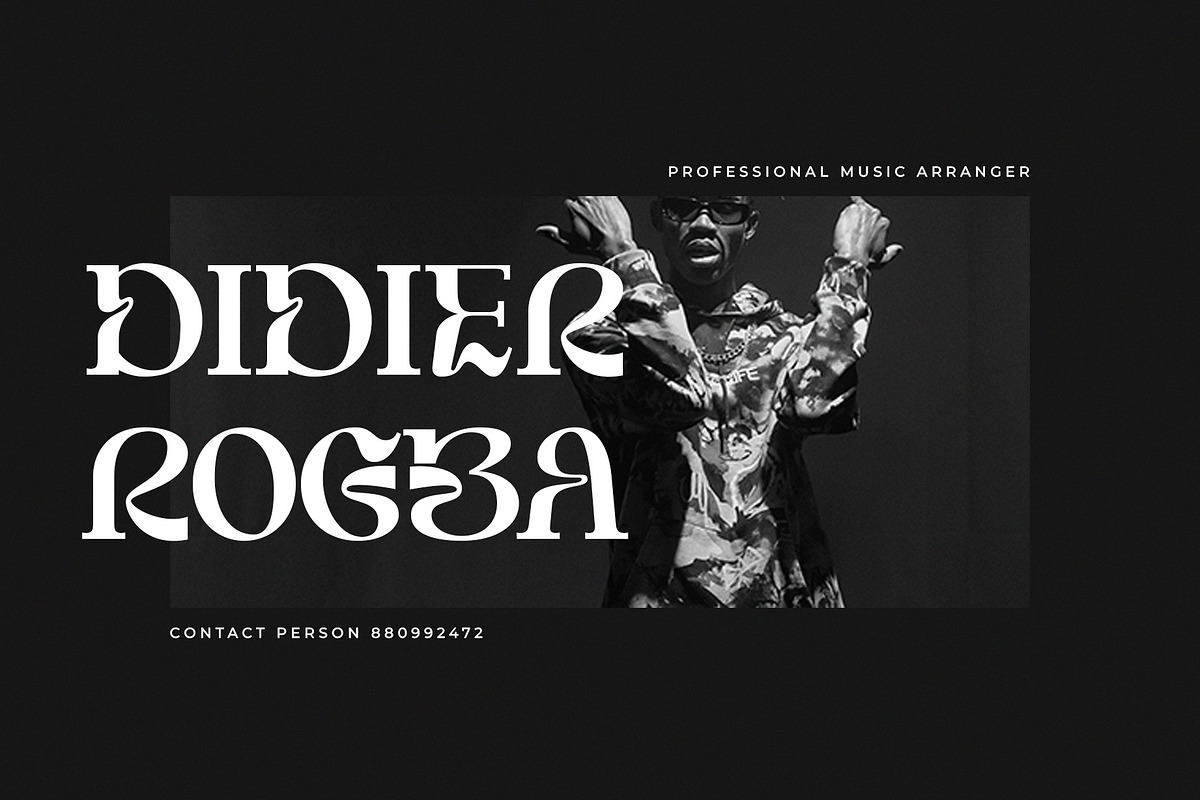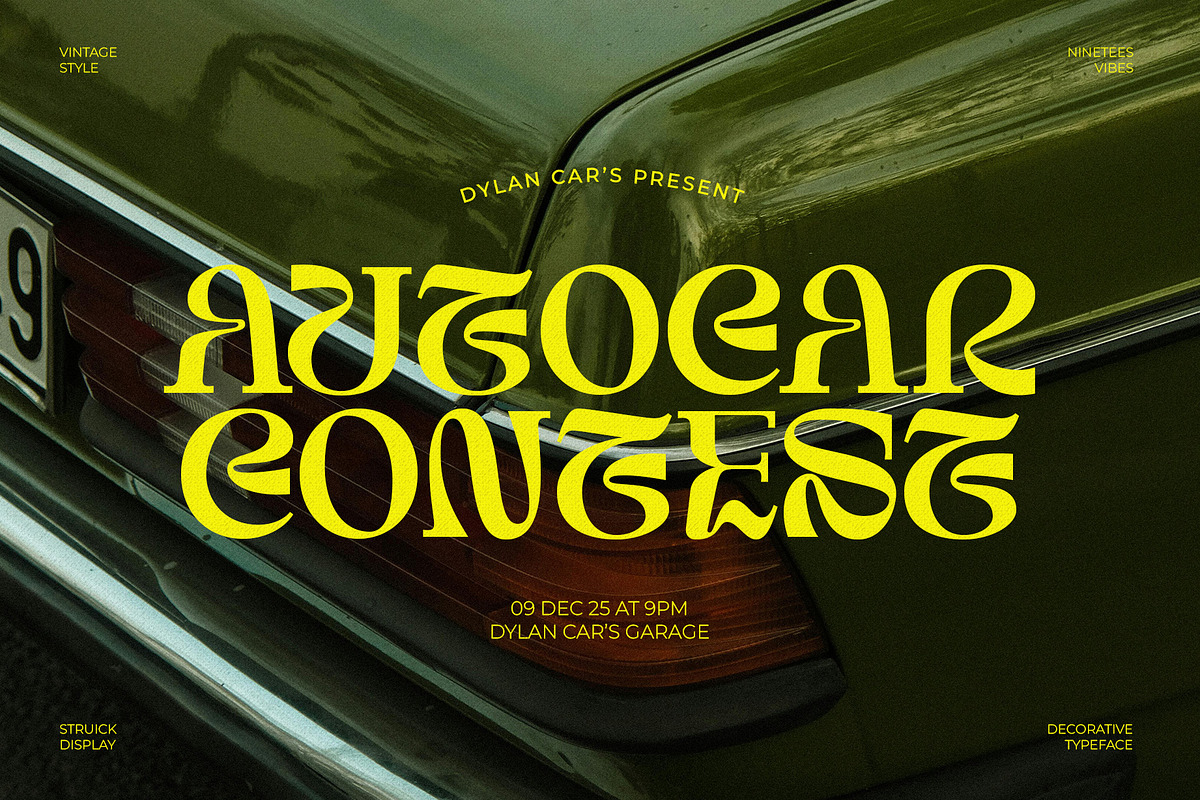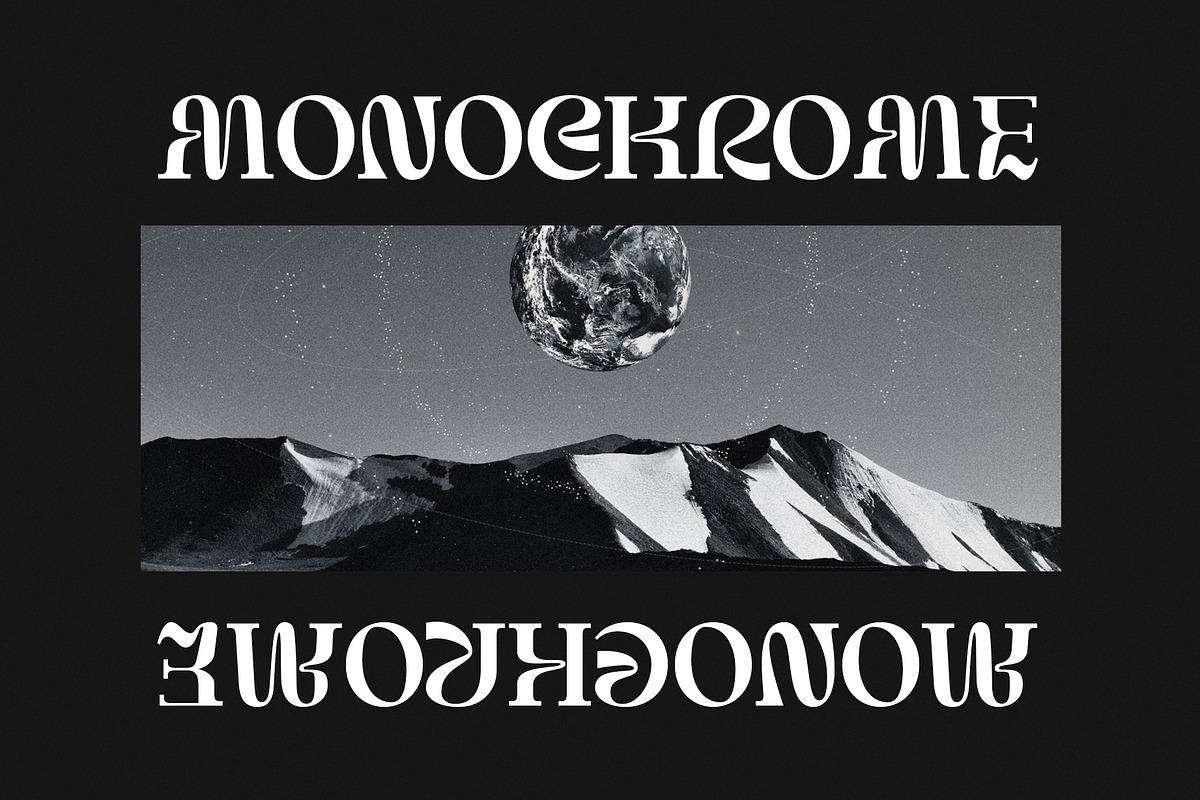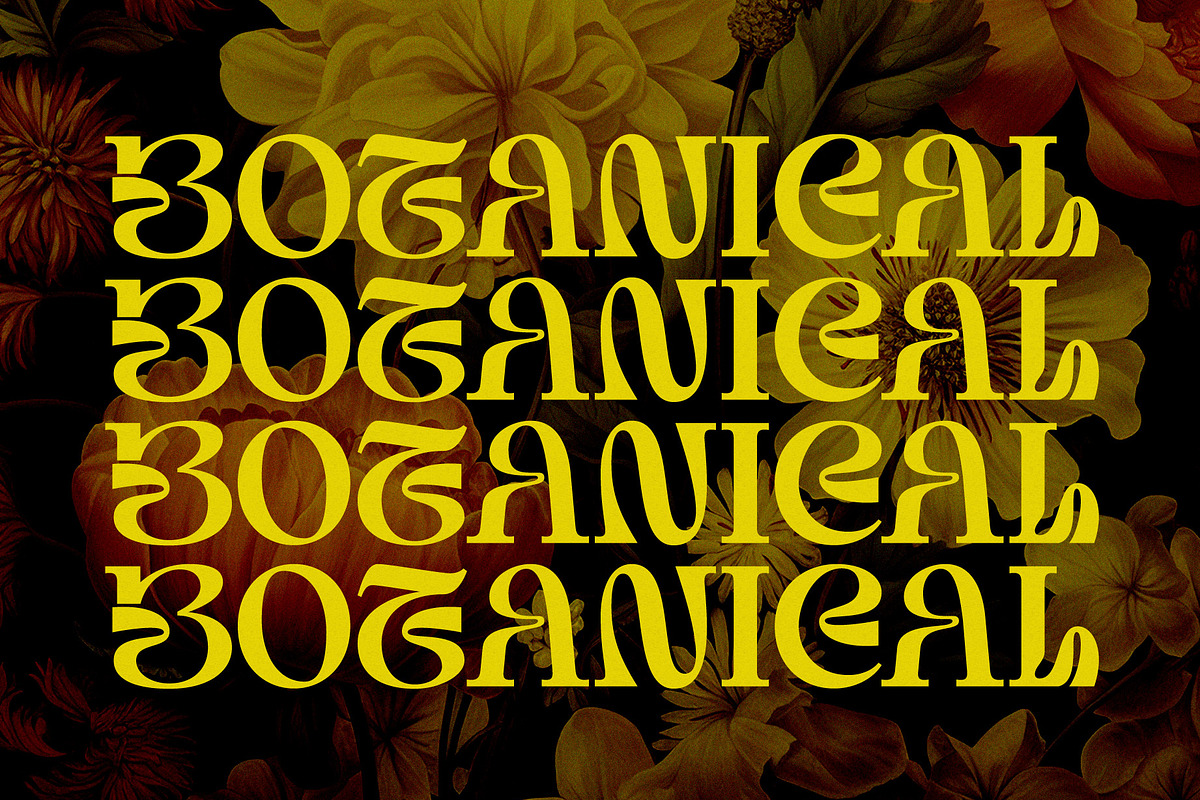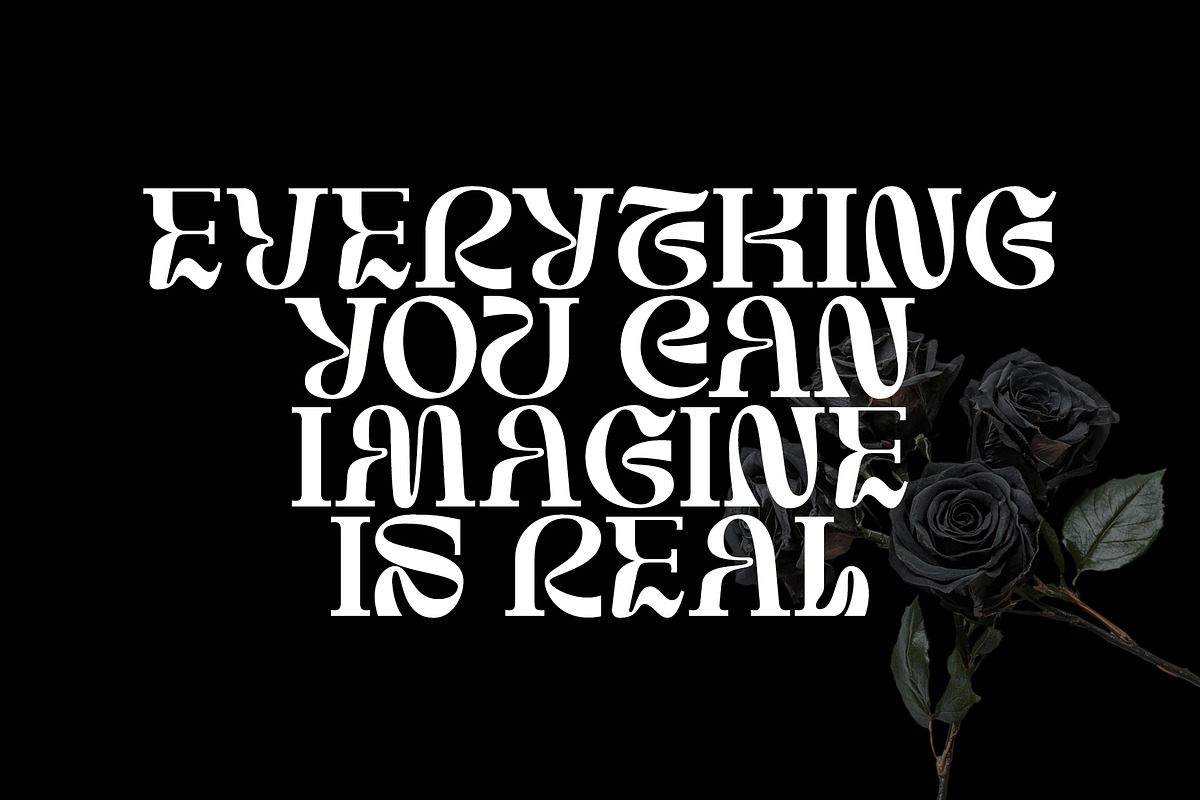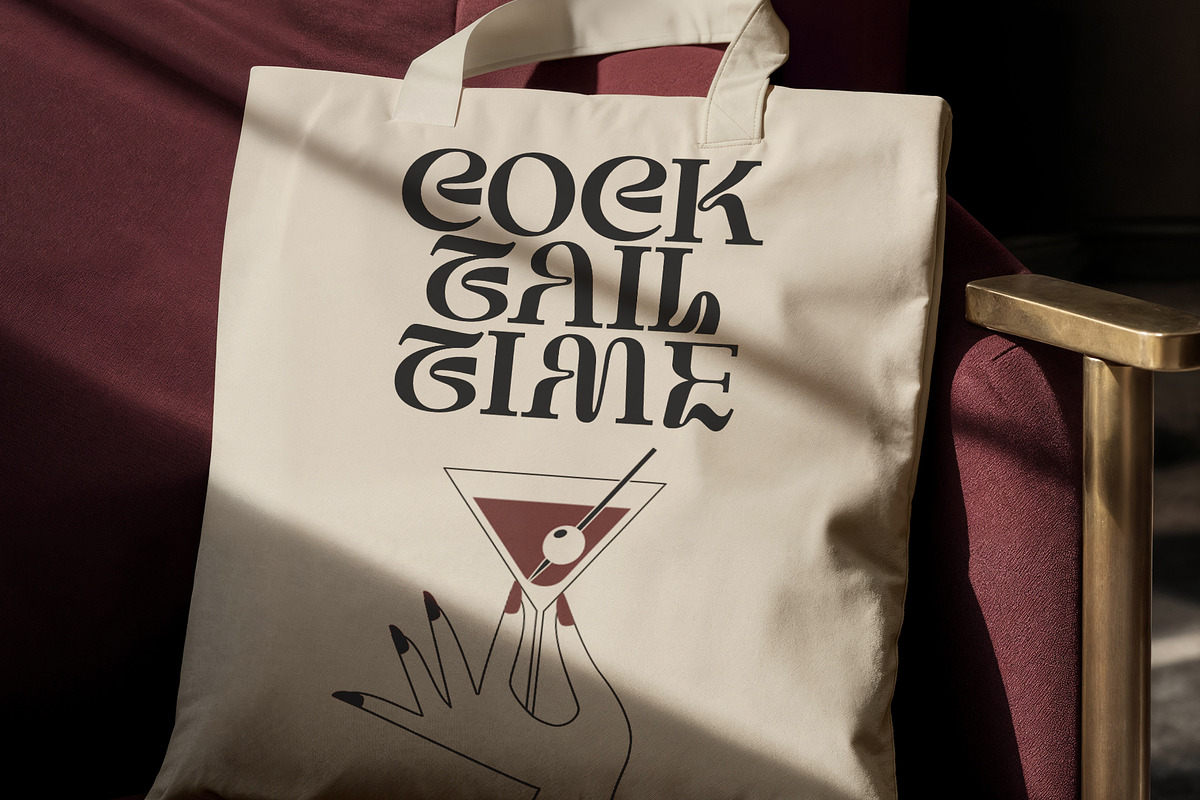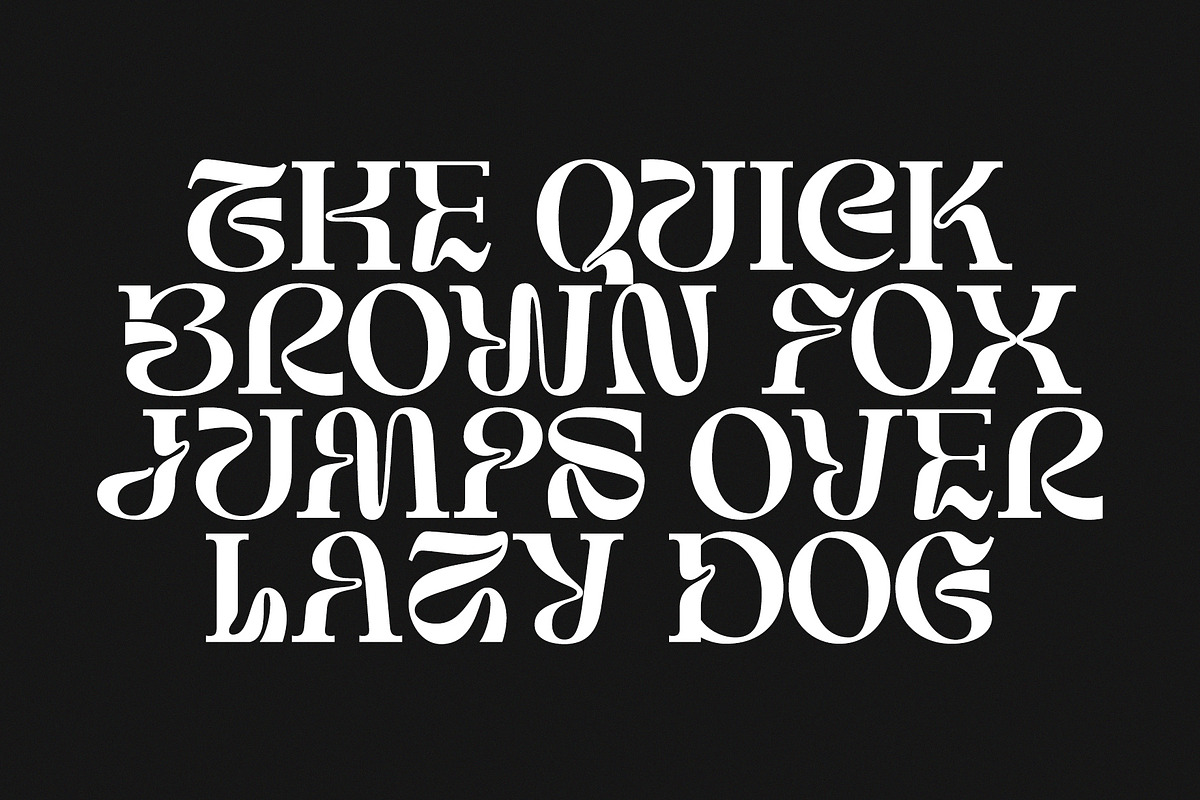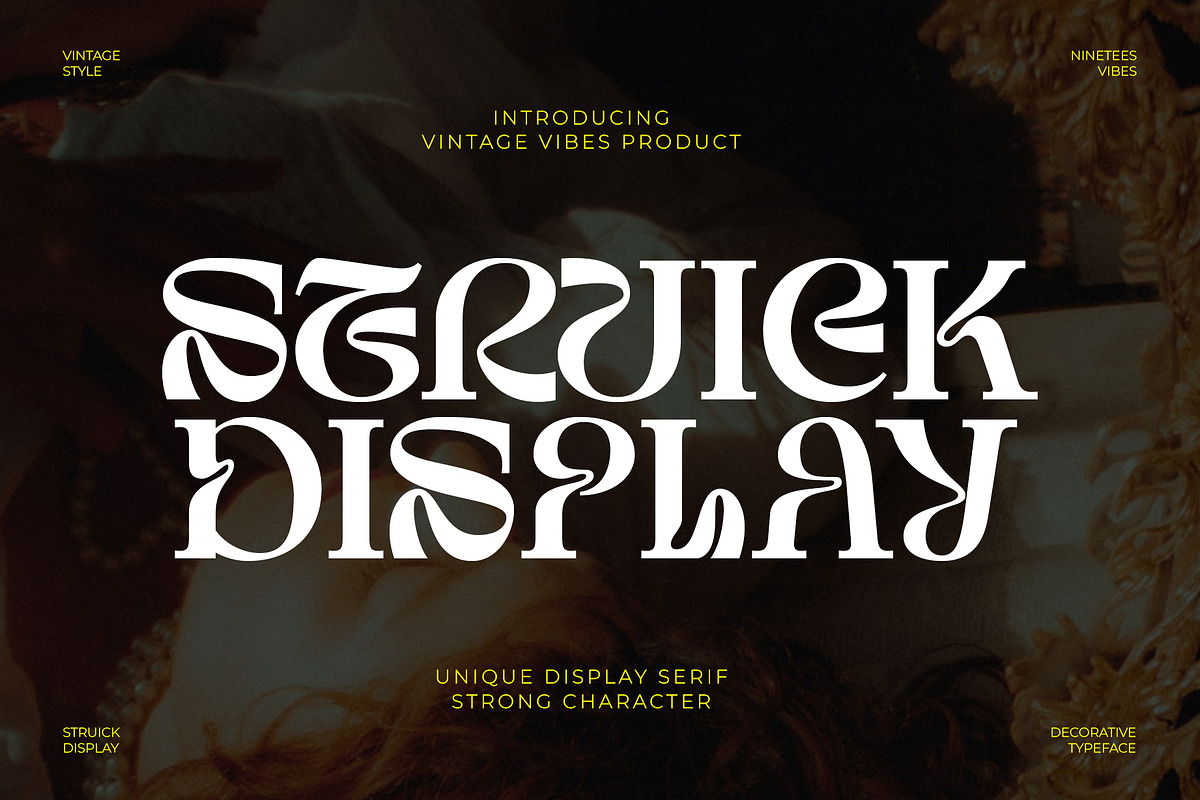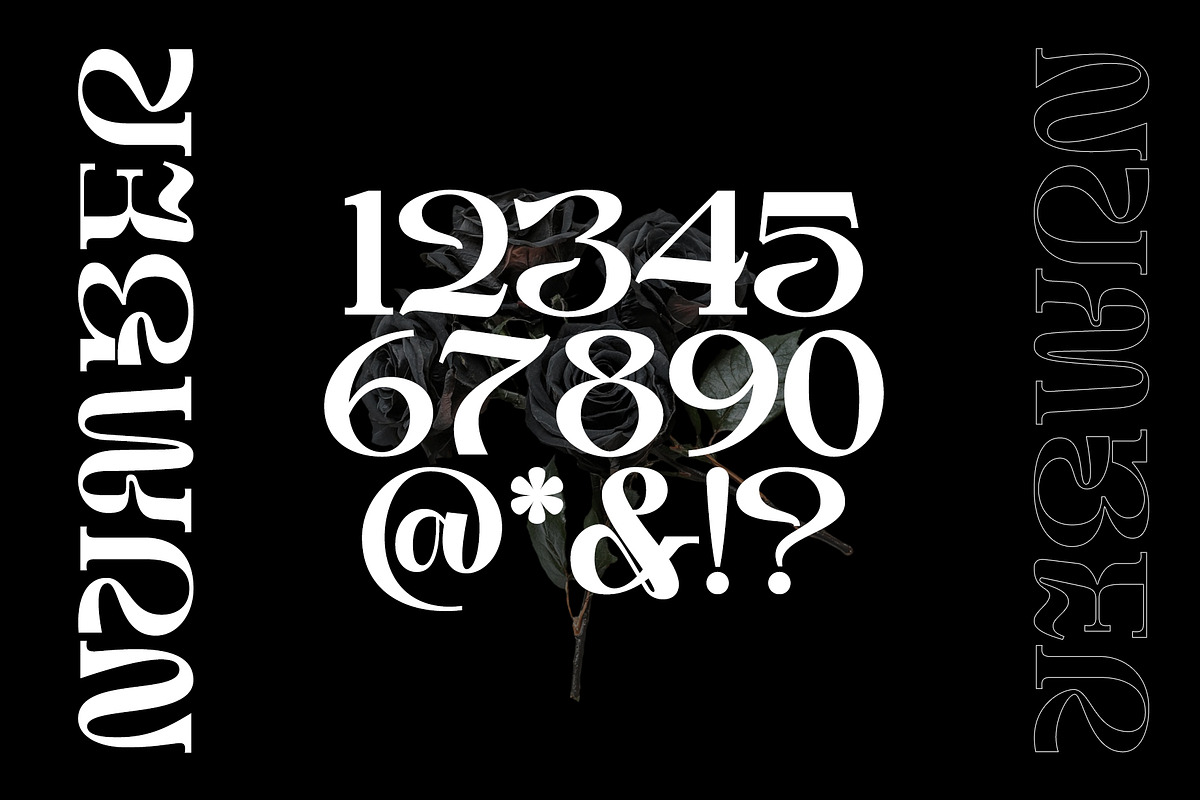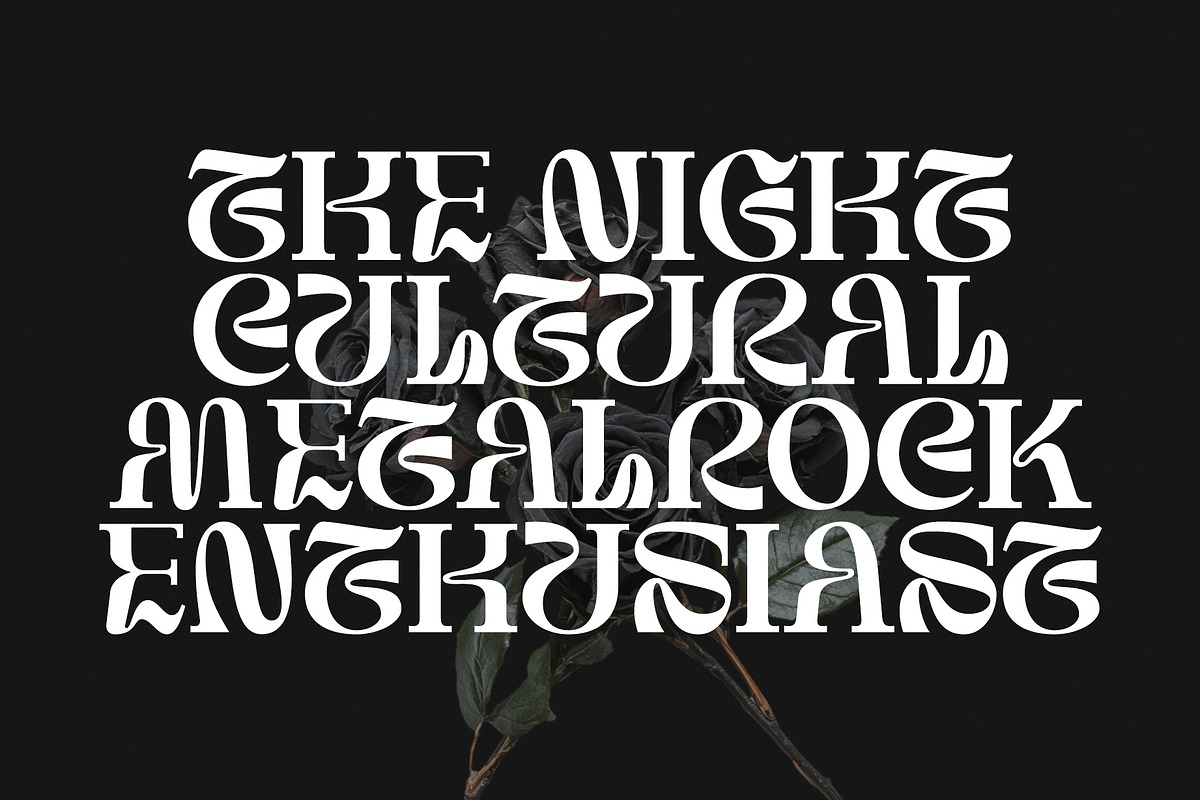
Struick Display Serif
Introducing: Struick – A Bold and Unique Display Serif
Struick is a serif font that combines bold character with clean, elegant curves. Designed as a display typeface, Struick blends modern serif aesthetics with a touch of vintage charm, making it perfect for headlines that demand attention and leave a lasting impression.
Whether you're working on branding, editorials, posters, or digital projects, Struick adds a distinctive flair that elevates your design.